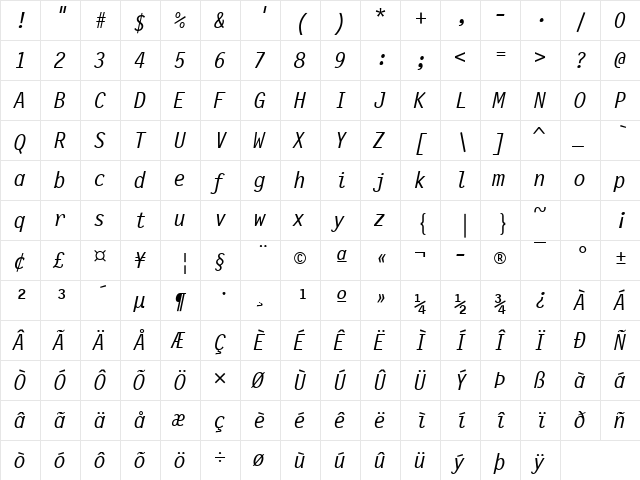
Financial Italic
Design Context for Financial Typeface
Financial is a composed and adaptable typeface that performs quietly and consistently across a wide range of design contexts. The dynamic lean of this cut emphasises speed and emphasis in any layout.